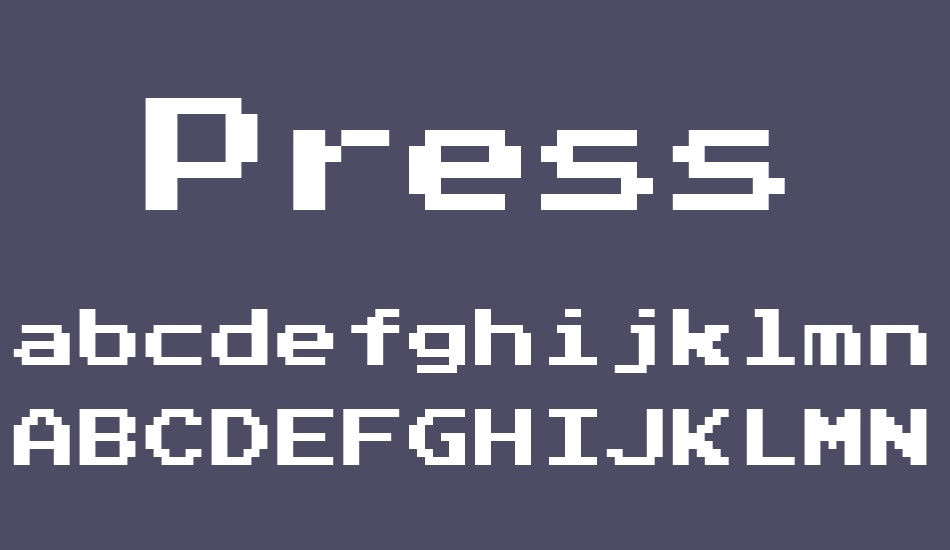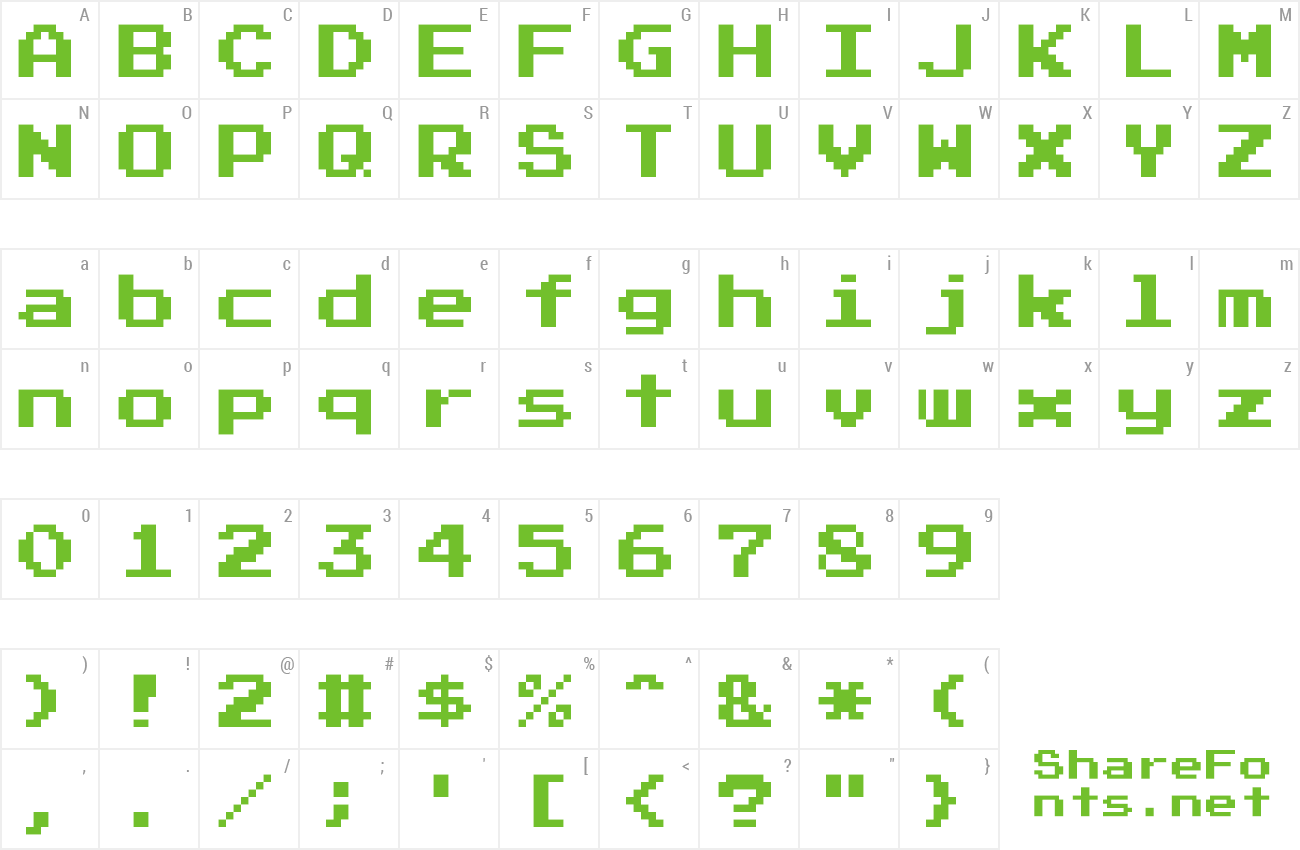
Press Start Font
Press Start Font - Press start 2p is a bitmap font based on the font design from 1980s namco arcade games. It works best at sizes of 8px, 16px and other multiples of 8. Web free download of press start 2p font. Although the design of uppercase letters and digits. Web note of the author. Web press start 2p is a bitmap font based on the font design from 1980s namco arcade games. Web press start à € by codeman38. Click now to create a custom image with.
Web press start à € by codeman38. Web press start 2p is a bitmap font based on the font design from 1980s namco arcade games. Web note of the author. Click now to create a custom image with. It works best at sizes of 8px, 16px and other multiples of 8. Although the design of uppercase letters and digits. Press start 2p is a bitmap font based on the font design from 1980s namco arcade games. Web free download of press start 2p font.
Click now to create a custom image with. It works best at sizes of 8px, 16px and other multiples of 8. Web note of the author. Web press start à € by codeman38. Web press start 2p is a bitmap font based on the font design from 1980s namco arcade games. Web free download of press start 2p font. Press start 2p is a bitmap font based on the font design from 1980s namco arcade games. Although the design of uppercase letters and digits.
Press Start 2P font Font Tr
Although the design of uppercase letters and digits. Web note of the author. It works best at sizes of 8px, 16px and other multiples of 8. Web free download of press start 2p font. Press start 2p is a bitmap font based on the font design from 1980s namco arcade games.
Press Start 2P font Font Tr
Web press start 2p is a bitmap font based on the font design from 1980s namco arcade games. Web press start à € by codeman38. It works best at sizes of 8px, 16px and other multiples of 8. Web note of the author. Web free download of press start 2p font.
Editable Press Start Font Design. Alphabet Typography Template Text
Click now to create a custom image with. Although the design of uppercase letters and digits. Web press start à € by codeman38. Web note of the author. Press start 2p is a bitmap font based on the font design from 1980s namco arcade games.
Press start 2p is a bitmap font based on the font design from 1980s namco arcade games. Click now to create a custom image with. Although the design of uppercase letters and digits. Web free download of press start 2p font. Web note of the author.
Press start 2p is a bitmap font based on the font design from 1980s namco arcade games. It works best at sizes of 8px, 16px and other multiples of 8. Web press start à € by codeman38. Web free download of press start 2p font. Although the design of uppercase letters and digits.
Web press start 2p is a bitmap font based on the font design from 1980s namco arcade games. Press start 2p is a bitmap font based on the font design from 1980s namco arcade games. Although the design of uppercase letters and digits. Click now to create a custom image with. It works best at sizes of 8px, 16px and.
Press start 2p is a bitmap font based on the font design from 1980s namco arcade games. Web press start 2p is a bitmap font based on the font design from 1980s namco arcade games. Web press start à € by codeman38. Although the design of uppercase letters and digits. It works best at sizes of 8px, 16px and other.
Press Start Regular font
Click now to create a custom image with. Although the design of uppercase letters and digits. It works best at sizes of 8px, 16px and other multiples of 8. Web press start à € by codeman38. Web note of the author.
Press Start 2P Font
Web press start à € by codeman38. Click now to create a custom image with. It works best at sizes of 8px, 16px and other multiples of 8. Although the design of uppercase letters and digits. Web press start 2p is a bitmap font based on the font design from 1980s namco arcade games.
Press Start 2P Font Download Fonts
Press start 2p is a bitmap font based on the font design from 1980s namco arcade games. Although the design of uppercase letters and digits. Web press start à € by codeman38. It works best at sizes of 8px, 16px and other multiples of 8. Click now to create a custom image with.
Web Press Start À € By Codeman38.
Web free download of press start 2p font. Although the design of uppercase letters and digits. Click now to create a custom image with. It works best at sizes of 8px, 16px and other multiples of 8.
Web Press Start 2P Is A Bitmap Font Based On The Font Design From 1980S Namco Arcade Games.
Press start 2p is a bitmap font based on the font design from 1980s namco arcade games. Web note of the author.